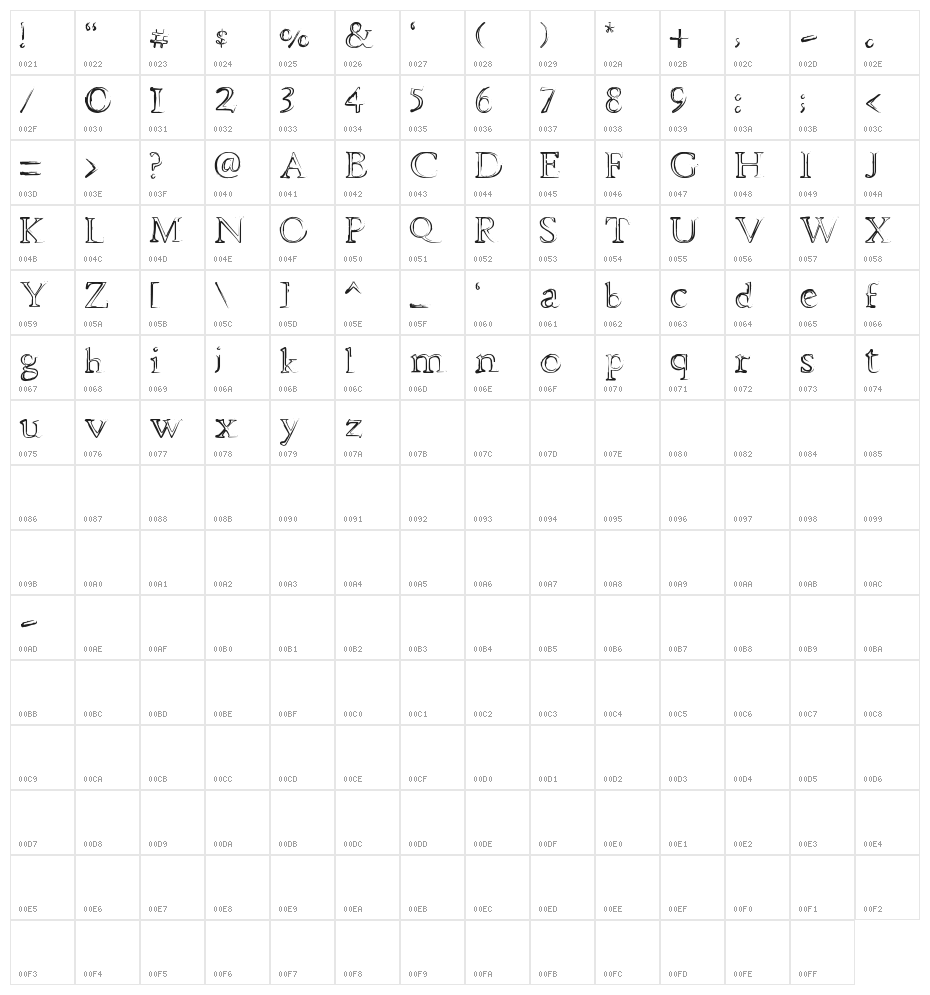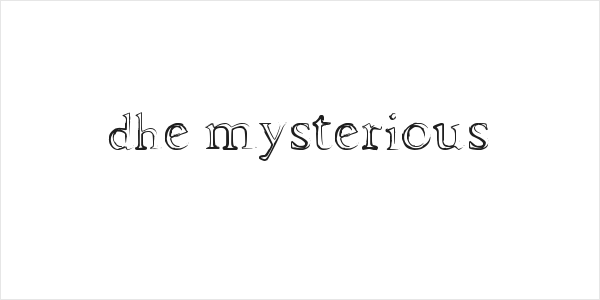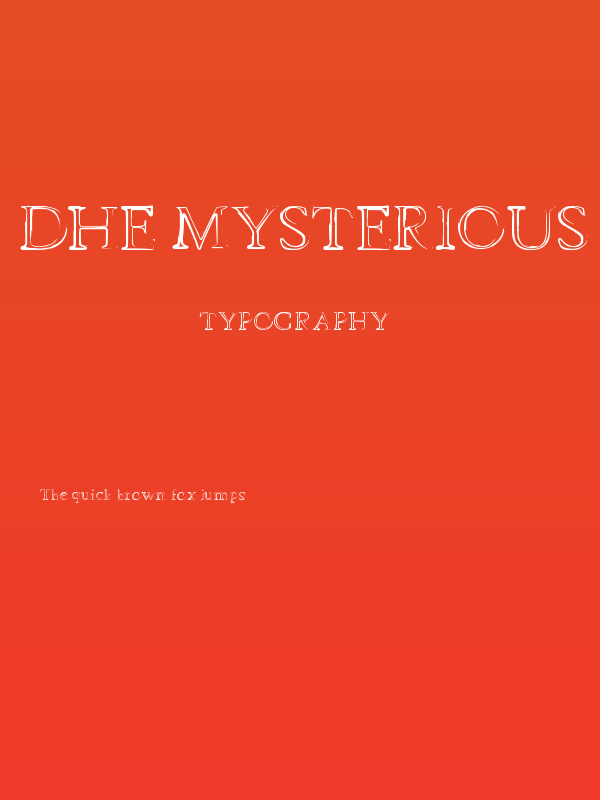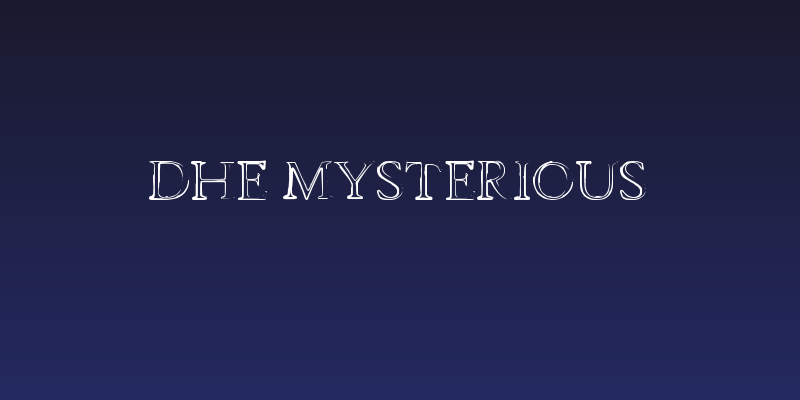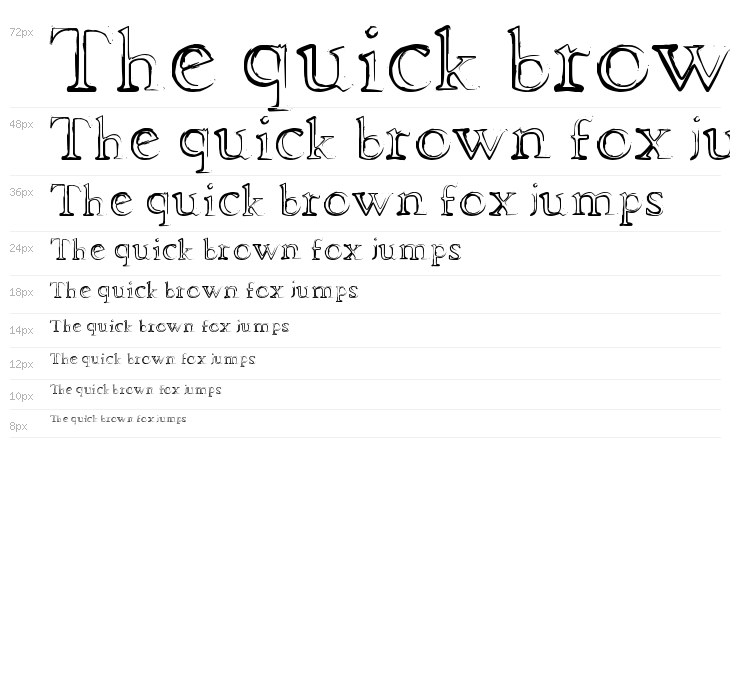
dhe mysterious Font
dhe mysterious Description
This font exhibits a unique blend of classic serif elements with a modern twist. The characters are adorned with subtle, artistic embellishments that give them a hand-drawn appearance. The uppercase letters are bold and commanding, while the lowercase letters maintain a more delicate and refined look. The numbers and special characters follow the same artistic style, ensuring a cohesive appearance across all text. The strokes vary in thickness, providing a dynamic contrast that enhances readability while adding visual interest. This font is perfect for projects that require a touch of elegance and creativity.